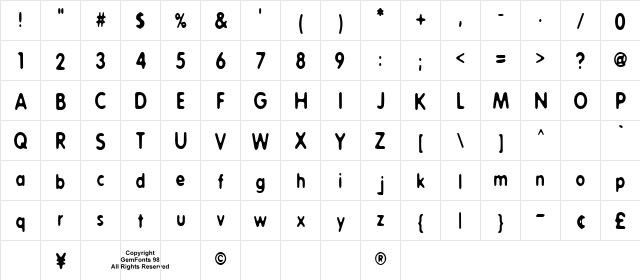
Whoosit Regular Font Preview
Whoosit Regular
Design Context for Whoosit Typeface
Whoosit is a composed and adaptable typeface that performs quietly and consistently across a wide range of design contexts.